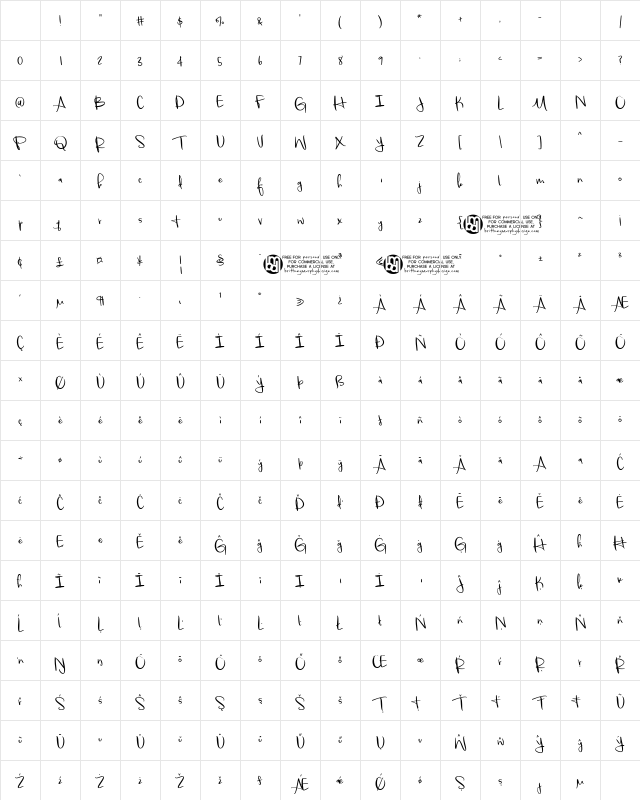
Beautiful Things is a composed and adaptable typeface that performs quietly and consistently across a wide range of design contexts. Its slender proportions lend an understated elegance to any composition.